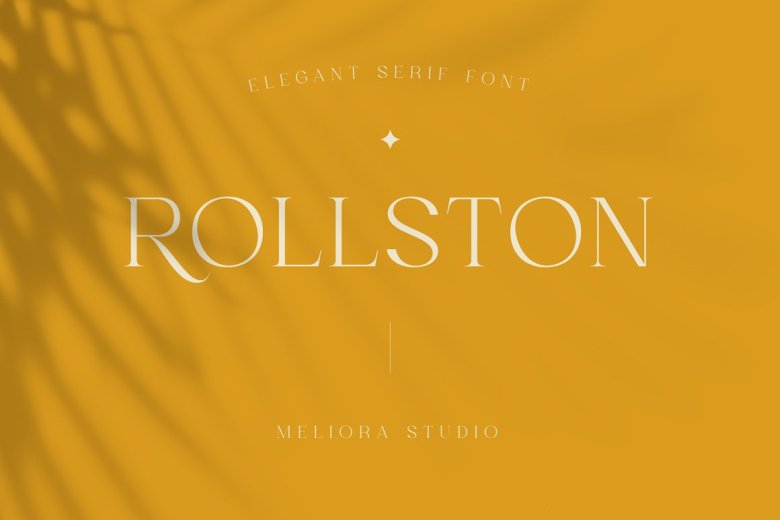
Rollston Font
Rollston is an elegant show serif typeface, distinguished by its beautiful ligatures and alternates that make this font suitable for any design project. There are various ways of accessing them such as Character Map (Windows), Nexus Font (Windows), Font Book (Mac), or using software apps like PopChar (available both for Windows and Mac).
Rollston Serif Font